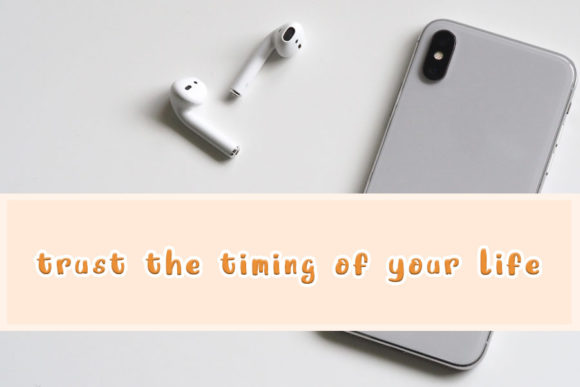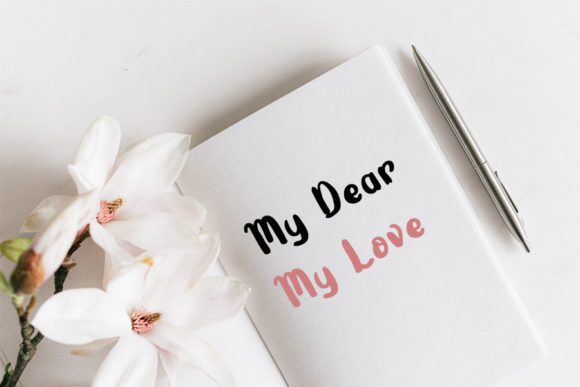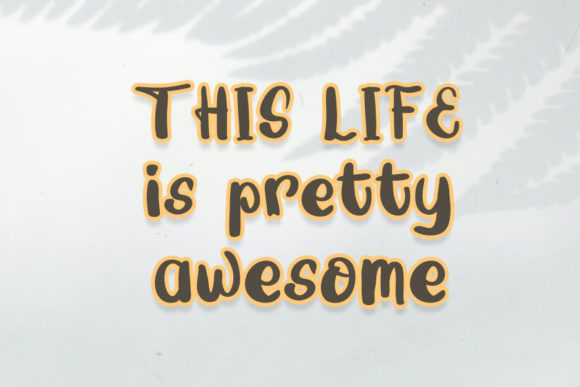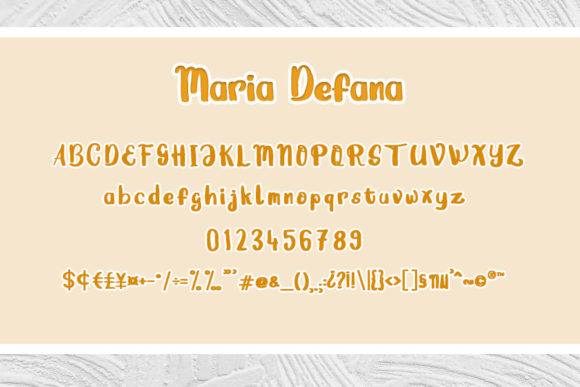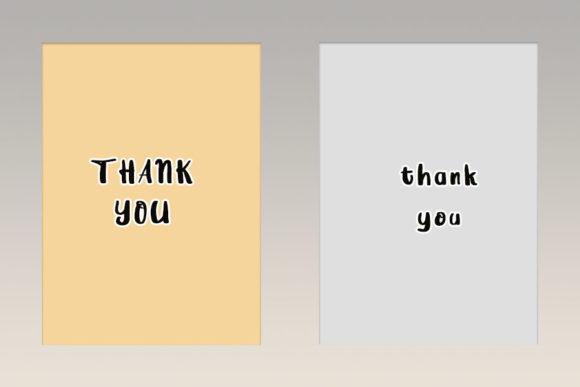
Introduction to Maria Defana Font
Maria Defana is a fun handwritten font with a genuinely assertive style.
Add it to your most creative ideas and notice how it makes them come alive .
Key Features of Maria Defana Font
Why Choose Maria Defana Font?
Maria Defana Font offers exceptional quality and versatility, making it a valuable addition to your design toolkit. Whether you’re creating for personal projects or commercial use, Maria Defana Font delivers professional results.